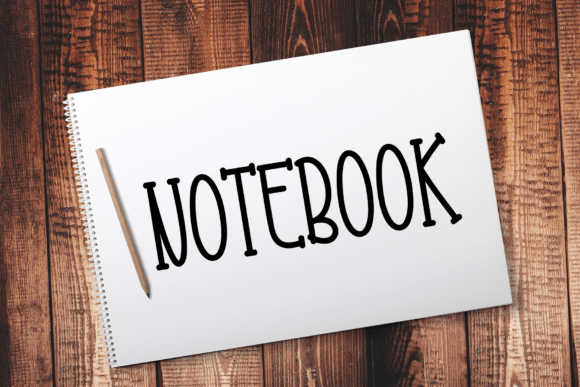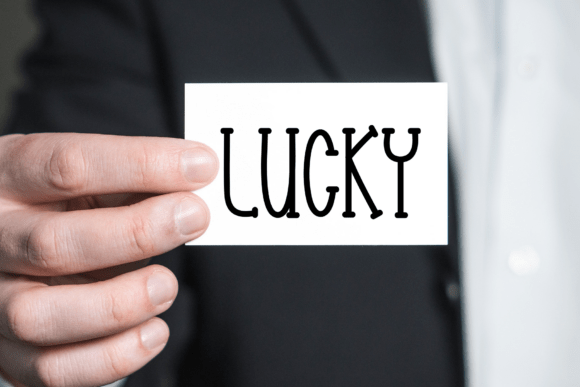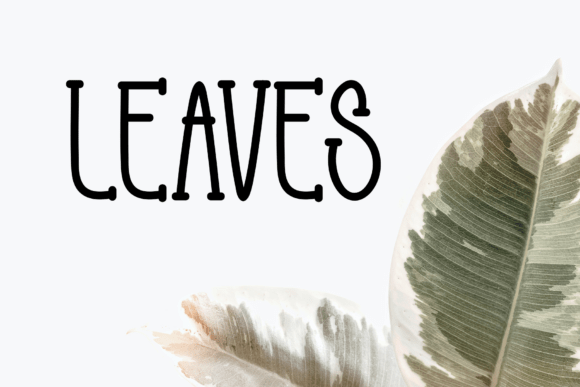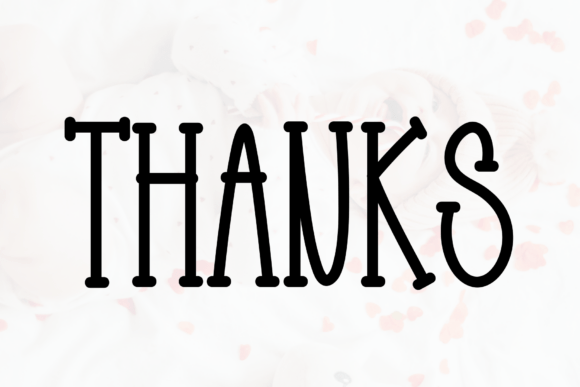
Introducing Cookie Chlato Font: The Sweetest Addition to Your Design Projects
Are you a designer or crafter looking for a font that can add a touch of warmth and coziness to your projects? Look no further than Cookie Chlato Font! This sweet and beautiful handwritten font is perfect for creating designs that are both visually appealing and inviting.
What Makes Cookie Chlato Font So Special?
Cookie Chlato Font features characters that dance along the baseline, giving it a playful and whimsical feel. The font’s handwritten style is both elegant and approachable, making it perfect for a wide range of design projects, from branding and packaging to scrapbooking and journaling.
One of the standout features of Cookie Chlato Font is its ability to add a cozy accent to any design project. Whether you’re creating a rustic-themed wedding invitation or a playful children’s party decoration, this font is sure to bring a smile to your audience’s faces.
Cookie Chlato Font is a versatile font that can be used in a variety of design projects, including:
- Branding and Packaging: Add a touch of personality to your brand with Cookie Chlato Font. Use it to create custom labels, packaging, and marketing materials that stand out from the crowd.
- Scrapbooking and Journaling: Add a personal touch to your scrapbook pages and journal entries with Cookie Chlato Font. Its playful style is perfect for documenting special memories and events.
- Party Decorations: Create custom party decorations, such as invitations, banners, and garlands, with Cookie Chlato Font. Its whimsical style is sure to delight kids and adults alike.
- Stationery and Cards: Use Cookie Chlato Font to create custom stationery, greeting cards, and gift tags that are both beautiful and functional.
Why Choose Cookie Chlato Font?
There are many reasons why Cookie Chlato Font is a great choice for designers and crafters. Here are just a few:
- Unique and Eye-Catching: Cookie Chlato Font is a one-of-a-kind font that is sure to grab attention. Its playful style is perfect for designs that need a little extra personality.
- Easy to Read: Despite its playful style, Cookie Chlato Font is easy to read and understand. This makes it perfect for designs that need to communicate a message clearly.
- Versatile: Cookie Chlato Font can be used in a wide range of design projects, from formal to informal. Its versatility makes it a great addition to any designer’s toolkit.
How to Use Cookie Chlato Font
Using Cookie Chlato Font is easy! Here are a few tips to get you started:
- Pair it with Other Fonts: Cookie Chlato Font pairs well with other fonts, such as sans-serif fonts and script fonts. Experiment with different pairings to find the perfect look for your design.
- Use it in Headlines and Titles: Cookie Chlato Font is perfect for headlines and titles. Use it to add a touch of personality to your design and draw attention to important information.
- Experiment with Colors: Cookie Chlato Font looks great in a variety of colors. Experiment with different colors and textures to find the perfect look for your design.
Cookie Chlato Font is a sweet and beautiful handwritten font that is perfect for designers and crafters. Its playful style and cozy accent make it a great addition to any design project. With its versatility, ease of use, and unique style, Cookie Chlato Font is sure to become a favorite in your design toolkit.